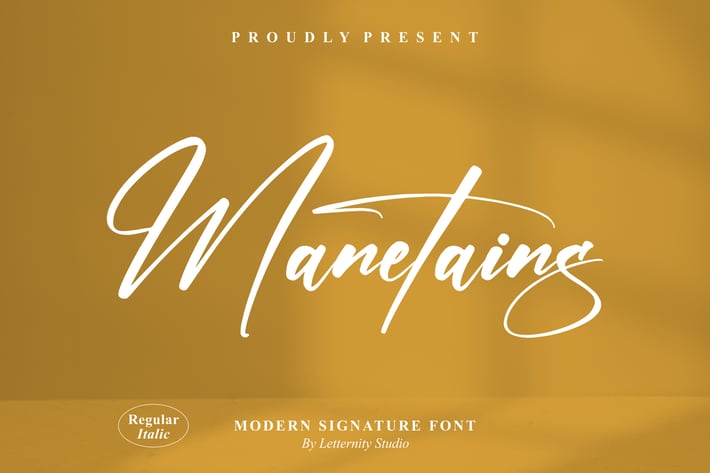
Manetains Signature Font
Manetains is a modern signature font with sleek strokes, long swashes, and a graceful handwritten style. It’s the perfect choice for fashion branding, elegant invitations, photography watermarks, and stylish quote designs.
Featuring Regular and Italic styles, Manetains offers full support for multilingual characters, OpenType ligatures, and swashes—making your designs look truly custom and high-end.
+ Ligatures, alternates, and swashes
+ Multilingual support
Perfect for:
+ Signature Logos
+ Fashion Labels
+ Social Media Quotes
+ Wedding Cards
+ Editorial Branding
Let your design speak with elegance and flow using Manetains!